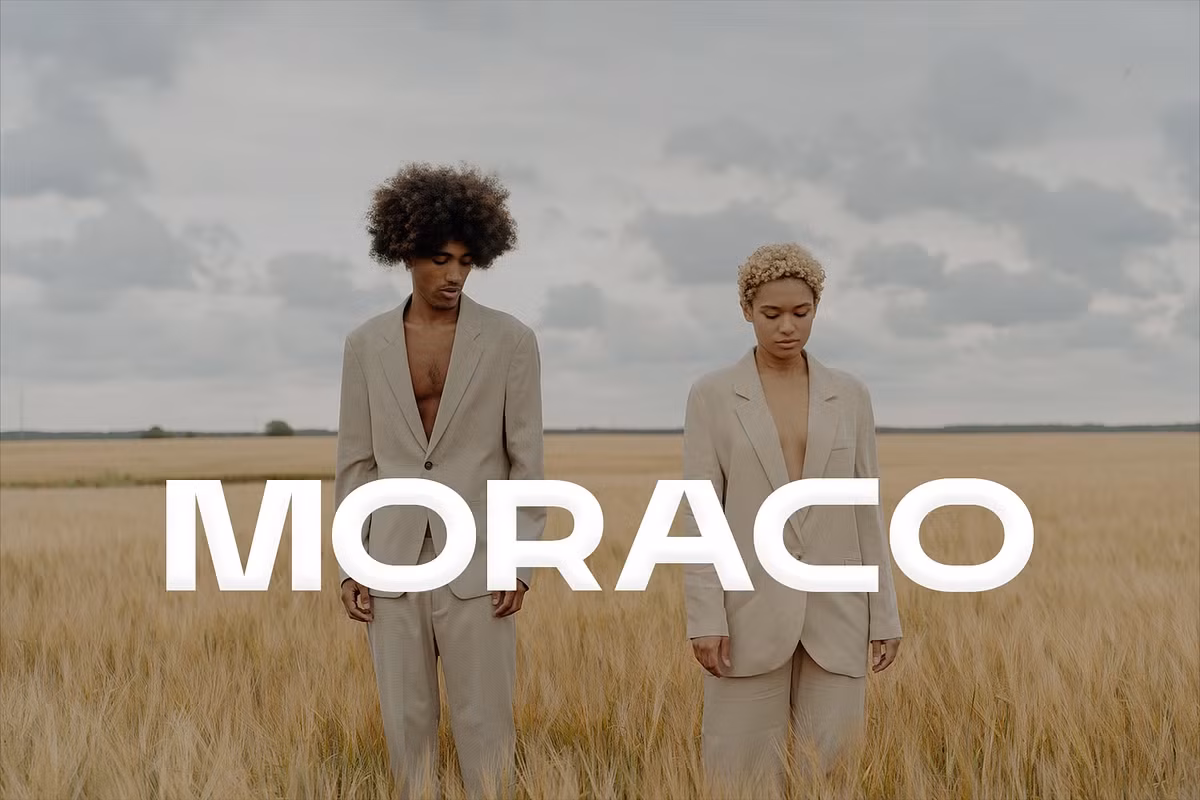
Moraco Display Font Free Download is a bold, modern typeface designed to make a powerful impact. With its unique geometric shapes and strong presence, this font is perfect for headlines, posters, logos, branding, and any project that demands attention-grabbing typography. Its clean lines and contemporary aesthetic ensure your designs stand out with confidence.
Whether you’re creating a striking brand identity, building a visual marketing campaign, or designing an eye-catching display, Moraco brings strength, clarity, and sophistication to your typography. It’s the ideal font for designers seeking bold, modern design solutions.